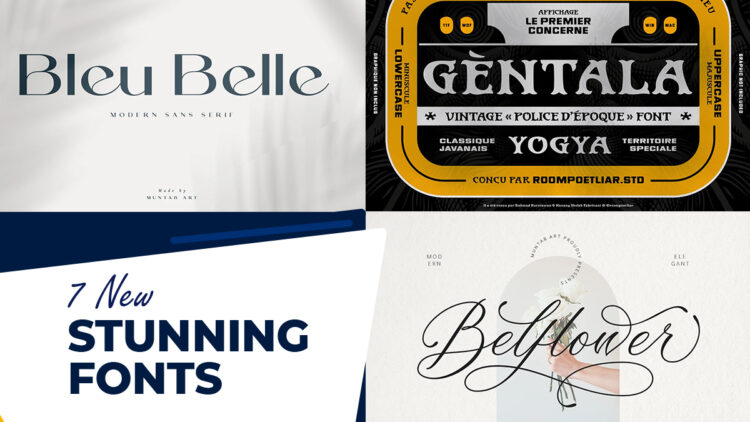
7 newest stunning fonts
7 Newest Stunning Fonts
Newest classic modern fonts style that is useful for various purposes like Script, Wedding, Invitations Etc. You will get to know about the latest variety of fonts created in modern times.
1. Bleu Belle | Modern Sans Serif.
Modern Sans- serif Font
2. Belflower Script | Modern Signature.
Elegant Signature Script Font.
3. Sallowness Handwritting Script Font.
Exclusive Handwriting Script Font.
4. Gentala Vintage Display Font
5. Amsterdian Signature Font
Stylist Signature Font
6. Mandalena | Script Font
Very New Wedding Font
7. Bright Christmas Script Font
Handwritten Script Font
Newest classic modern fonts style that is useful for various purposes like Script, Wedding, Invitations Etc. You will get to know about the latest variety of fonts created in modern times.